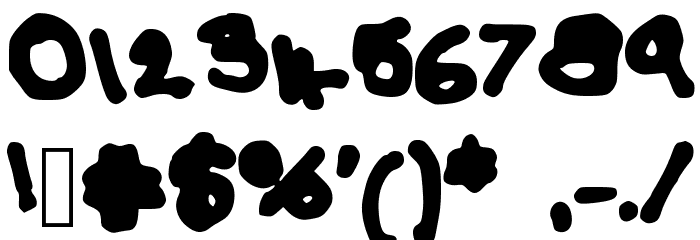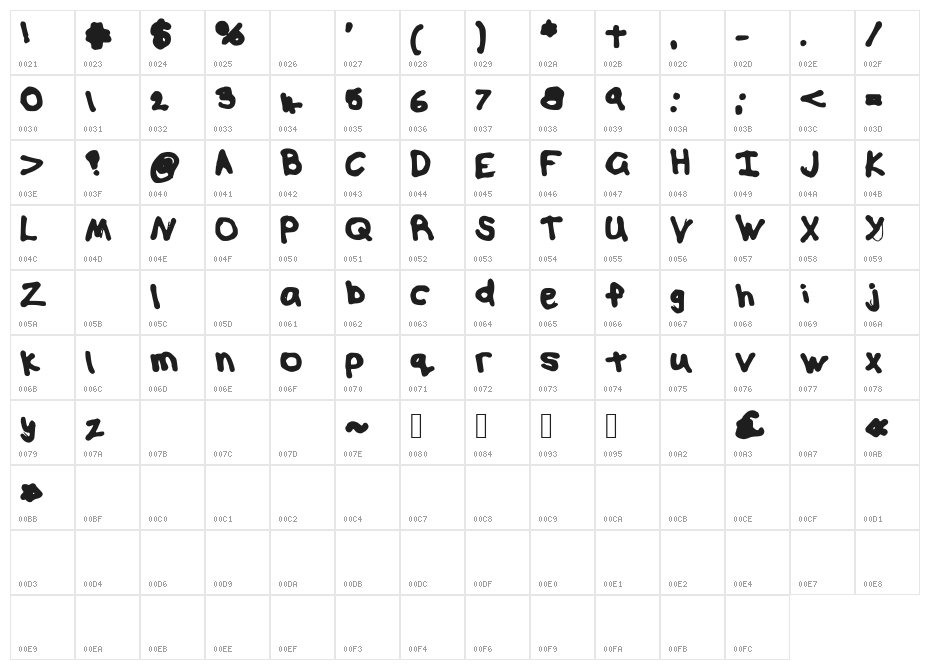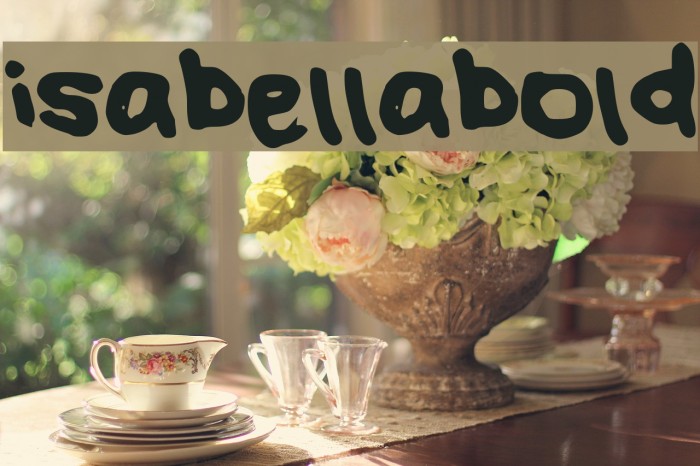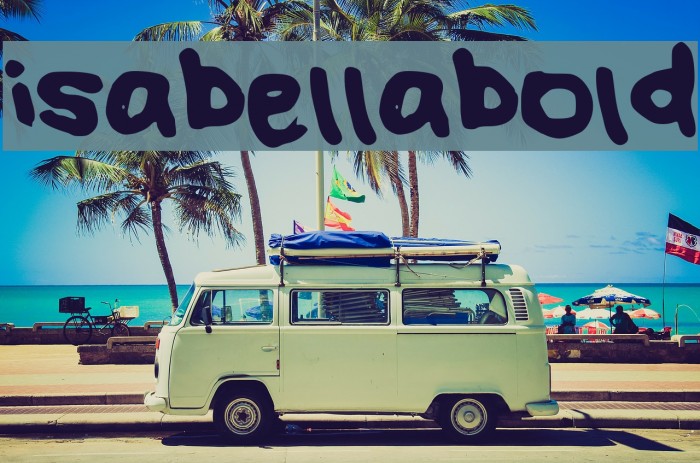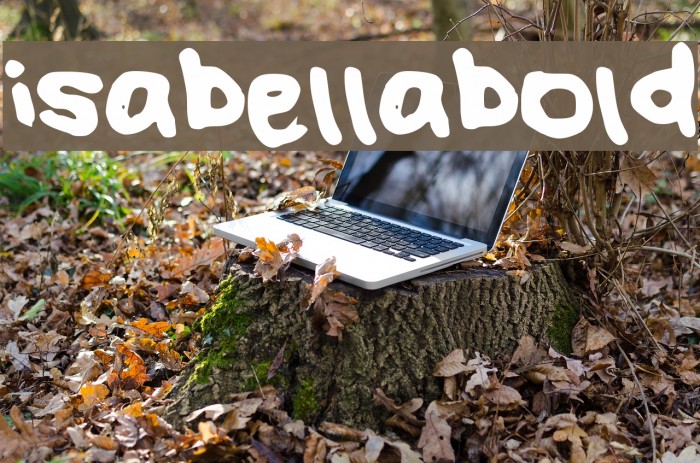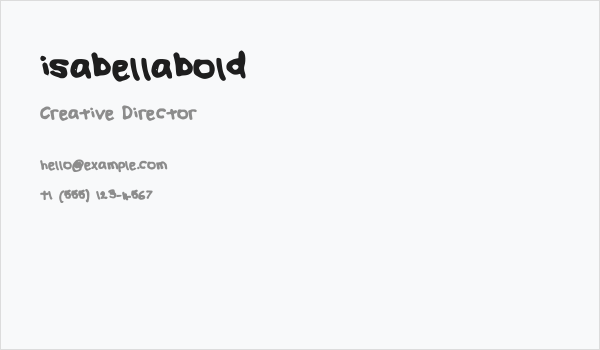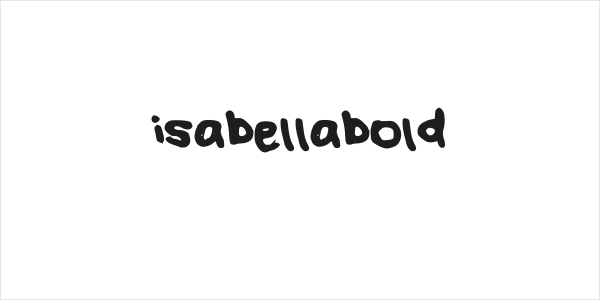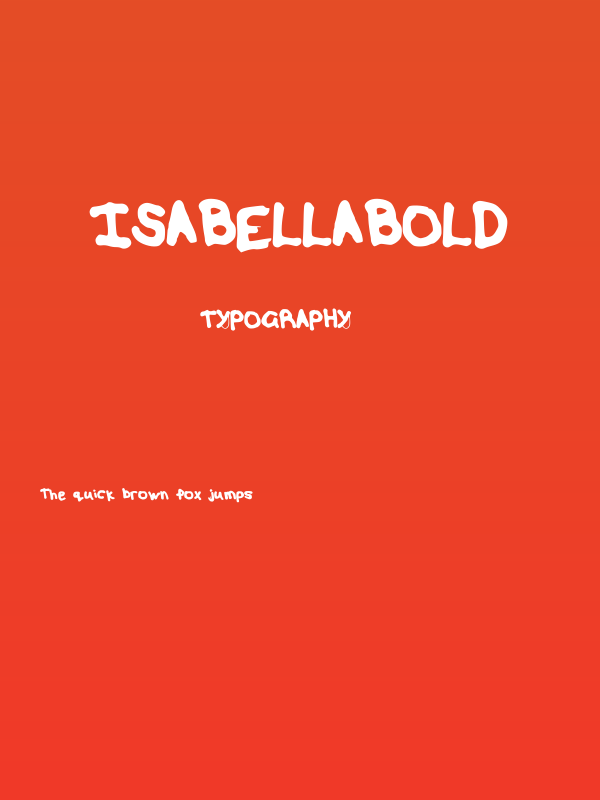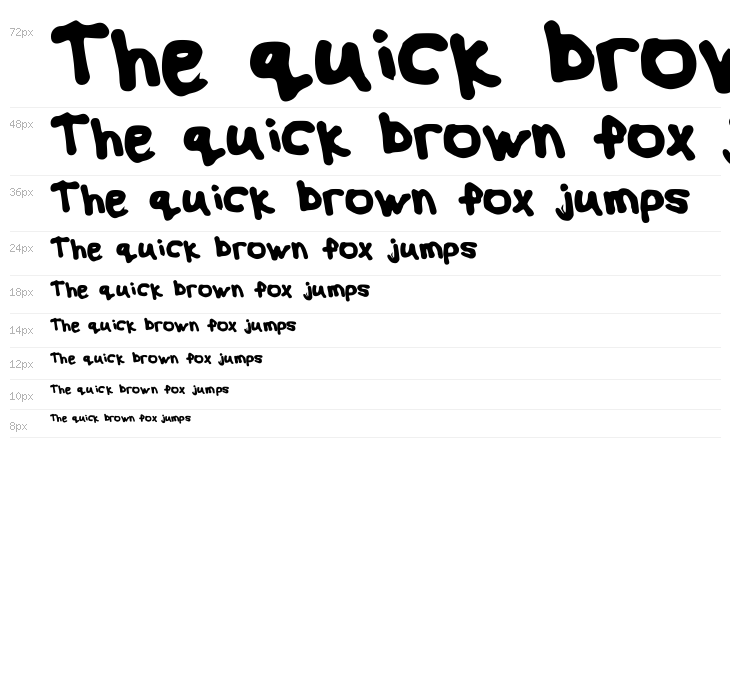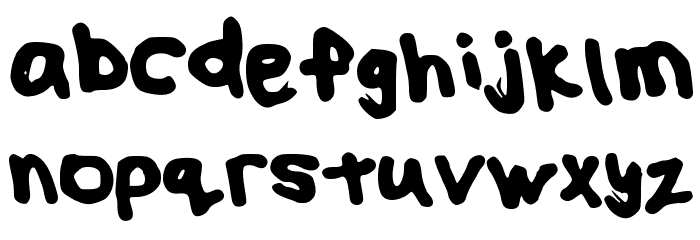
isabellabold Font
isabellabold Description
This font features a bold, playful style with a hand-drawn appearance. The characters are thick and rounded, giving a sense of warmth and approachability. The uppercase and lowercase letters maintain a consistent weight, contributing to a cohesive look. The numerals and special characters follow the same design principles, ensuring uniformity across all glyphs. The overall design is informal and friendly, making it suitable for creative and casual applications. The strokes are consistent in thickness, with minimal contrast, enhancing readability while maintaining a distinctive character.
| Proposed Projects | Ideal for children's books, playful branding, greeting cards, and casual posters. |